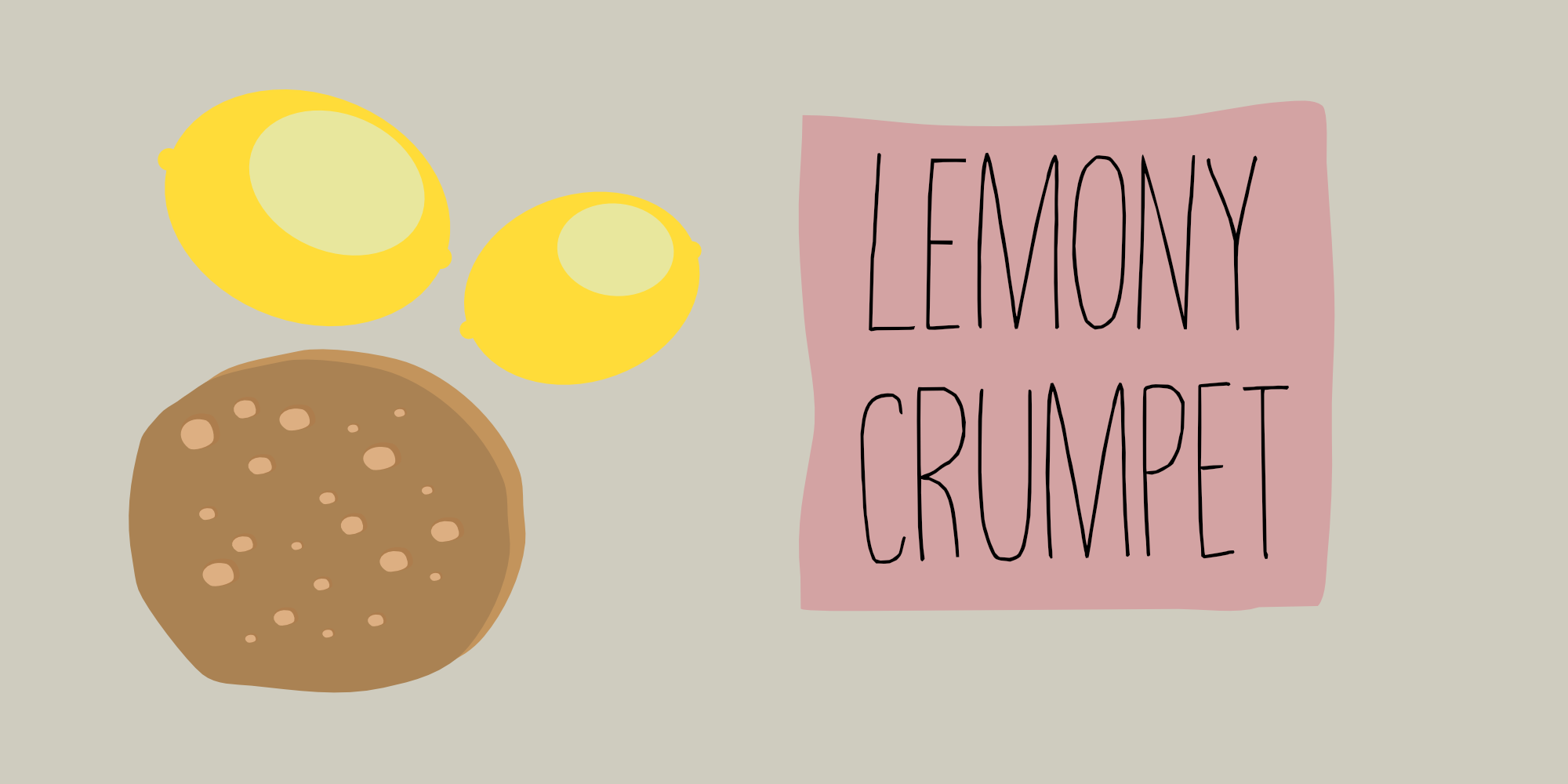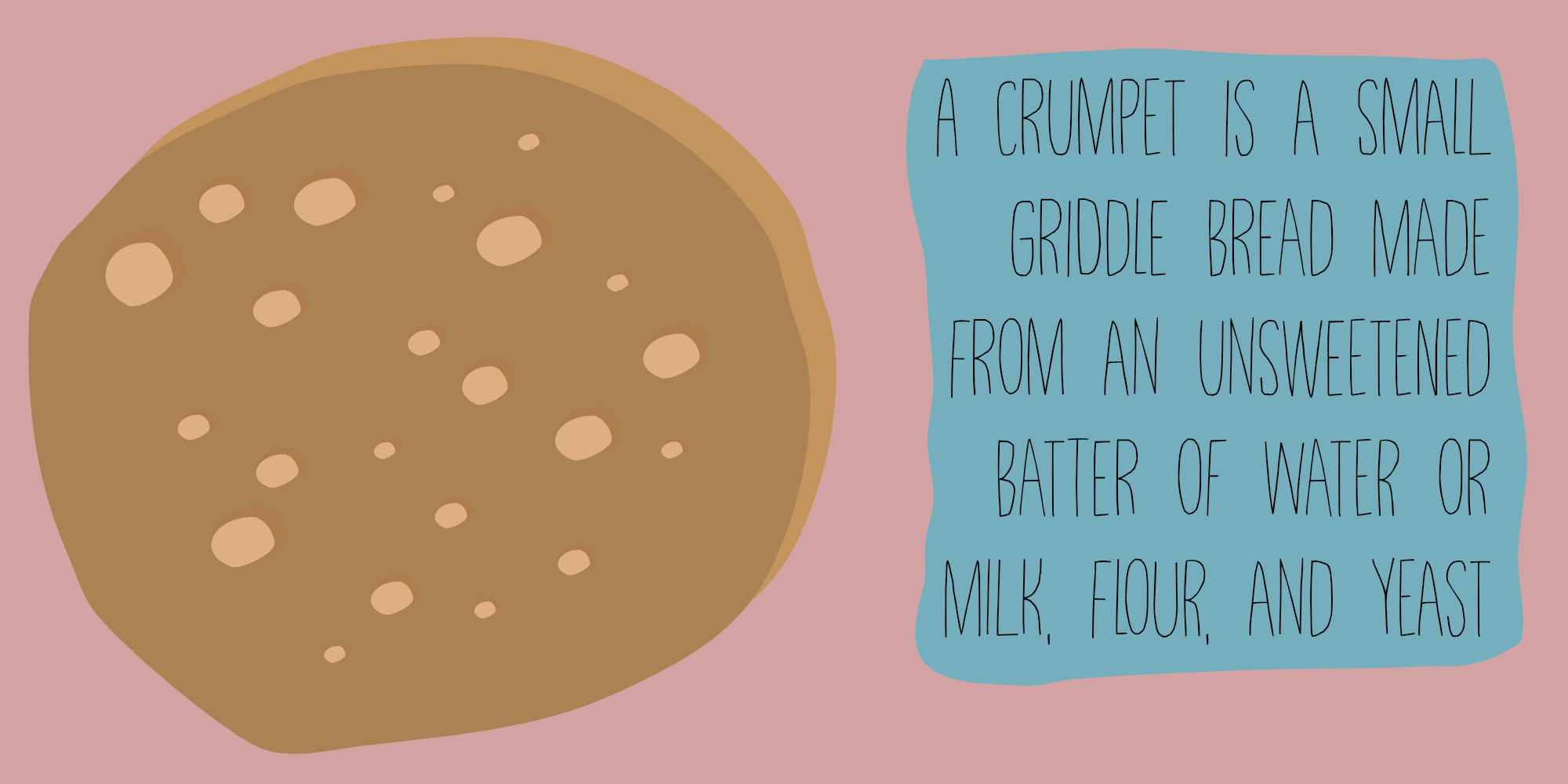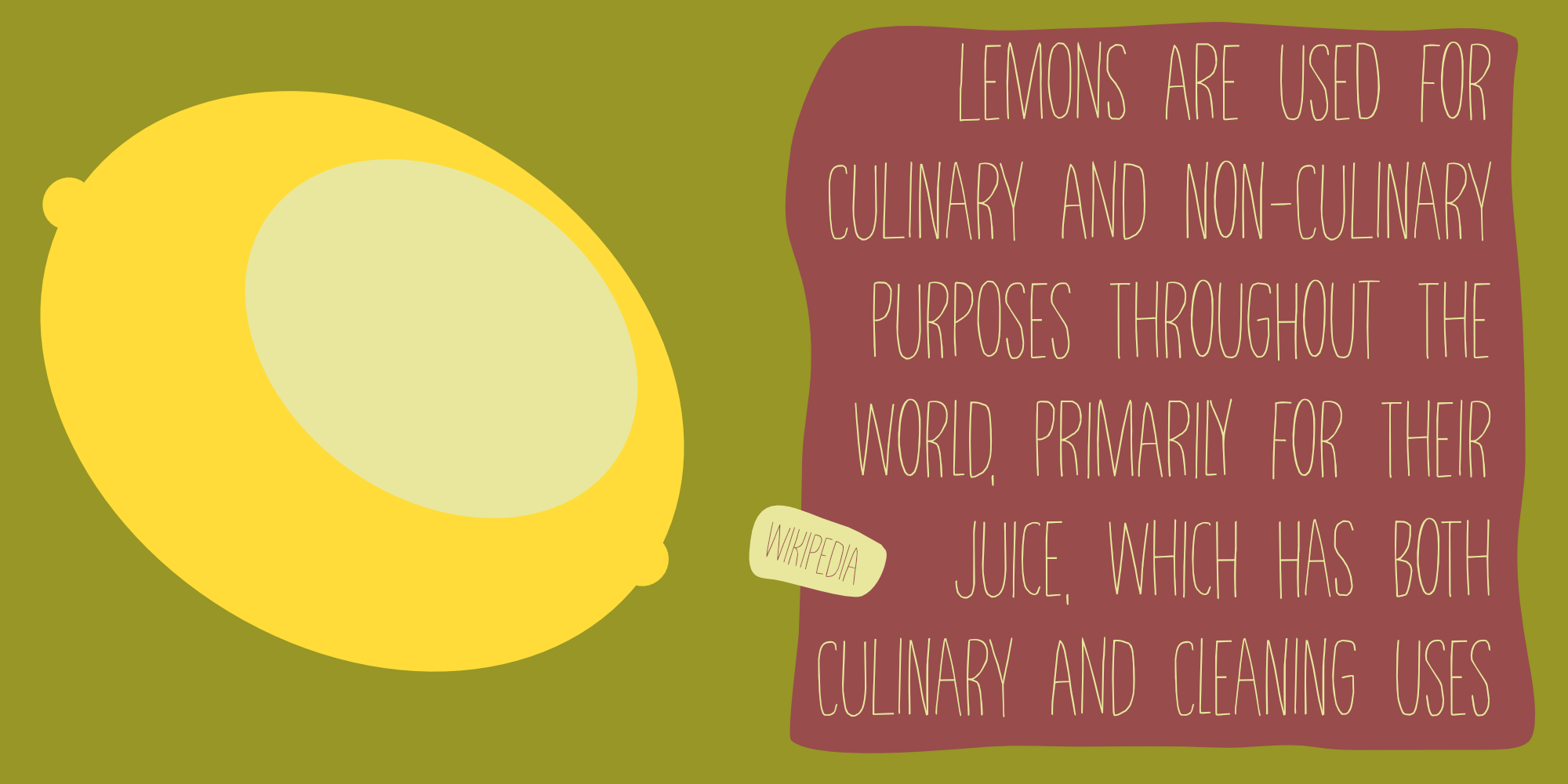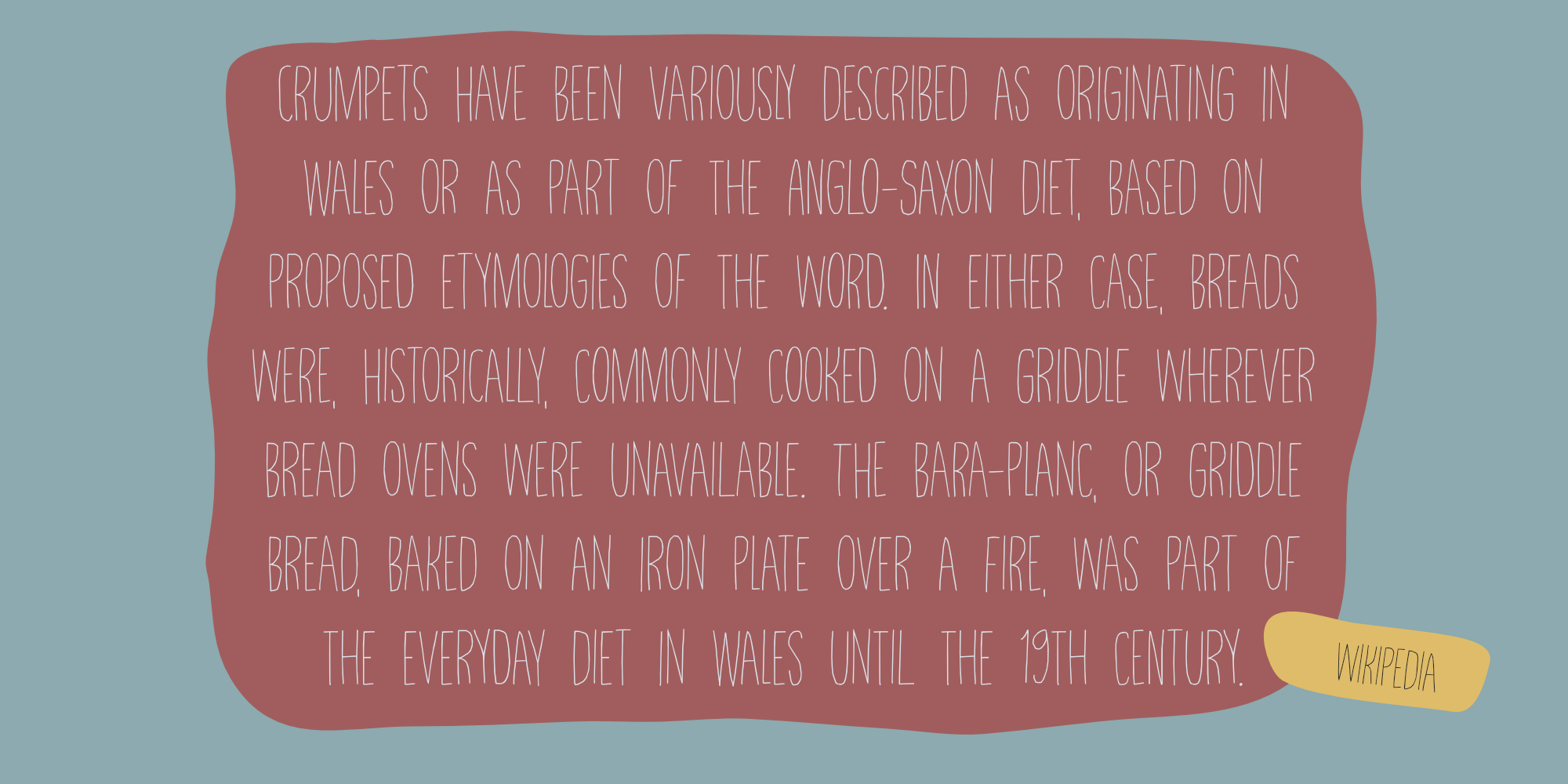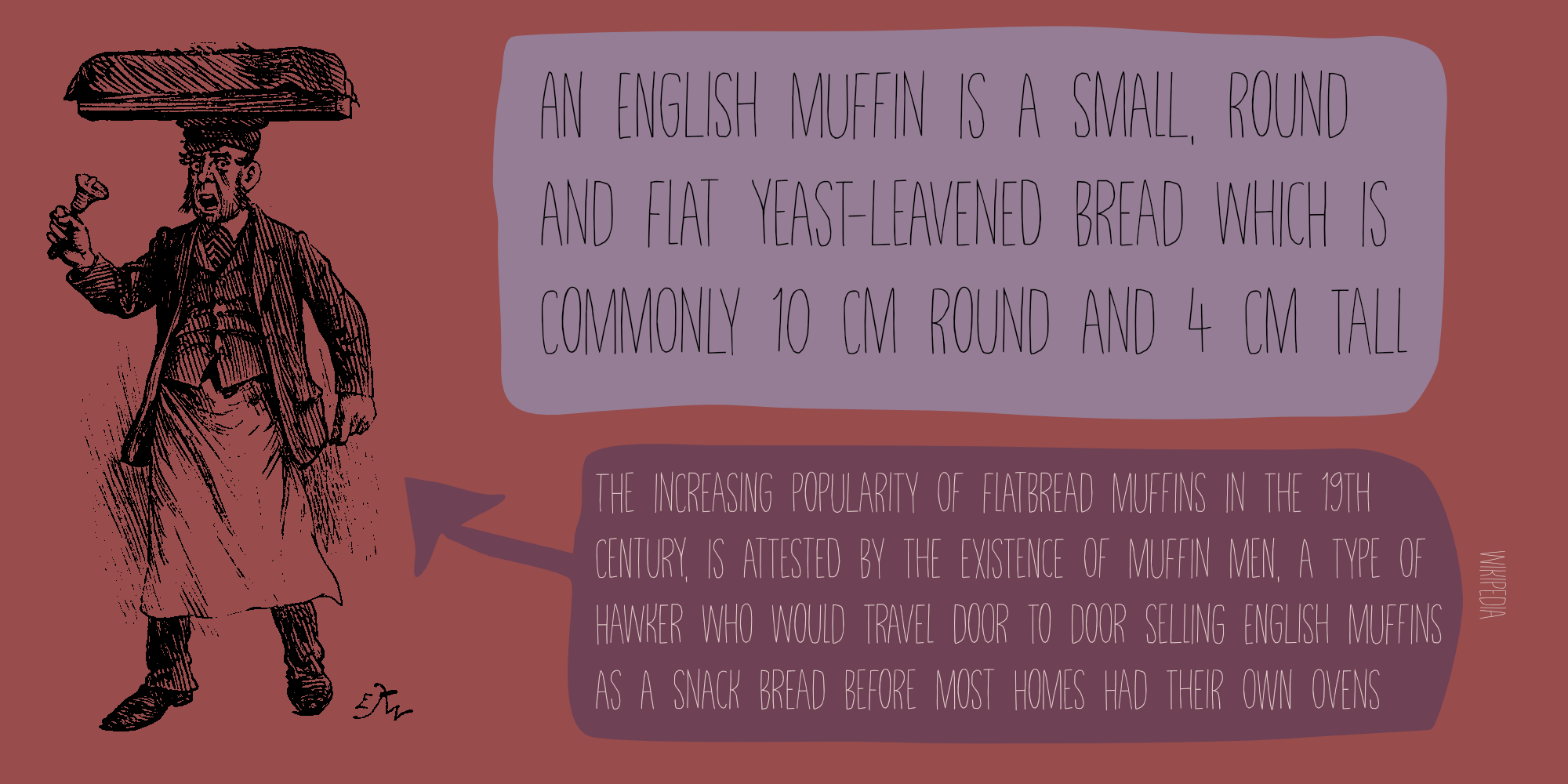
Lemony Crumpet is a whimsical, handmade font. It is tall & thin, shaky and jumpy and I wouldn’t use it as a poster font because of its delicate properties, but it would look fantastic on book covers, product packaging and websites. Comes with extensive language support and a set of alternates for the lower case letters.